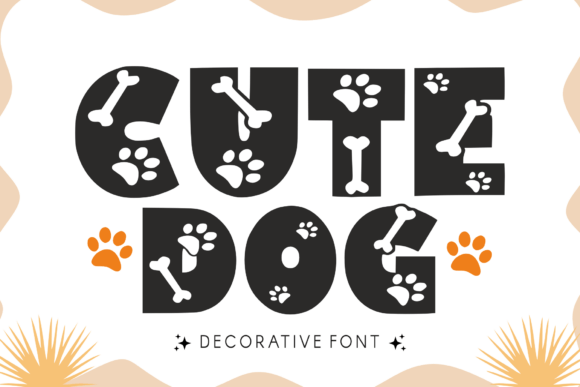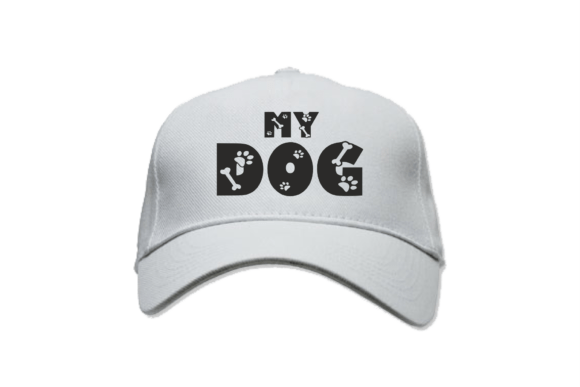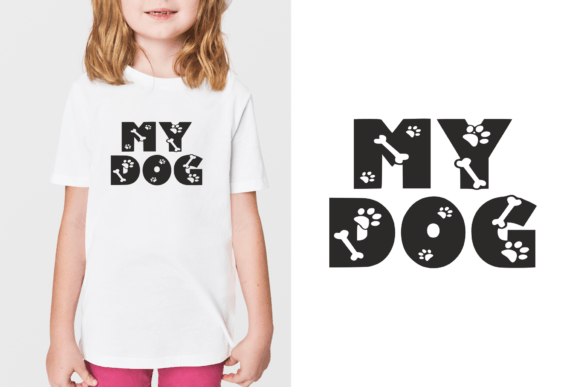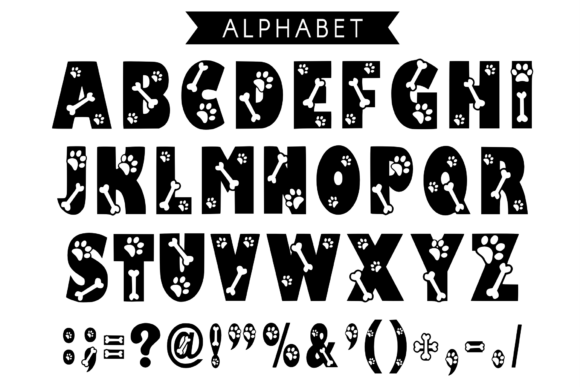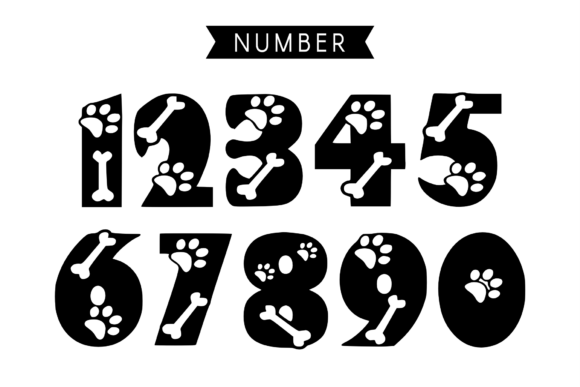
Introduction to Keep a Dog Font
Unveiling “Keep a Dog”, an exclusively imaginative Decorative font.
Each alphabet bristles with engaging dog bones and adorable paws shapes, offering an element of fun and playfulness Making its mark everywhere from print designs like tees and banners, to invitations and digital designs, this font also breathes joy into everyday items including mugs and tote bags.